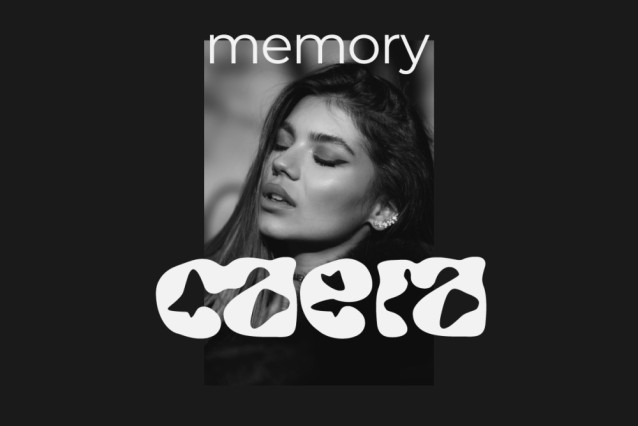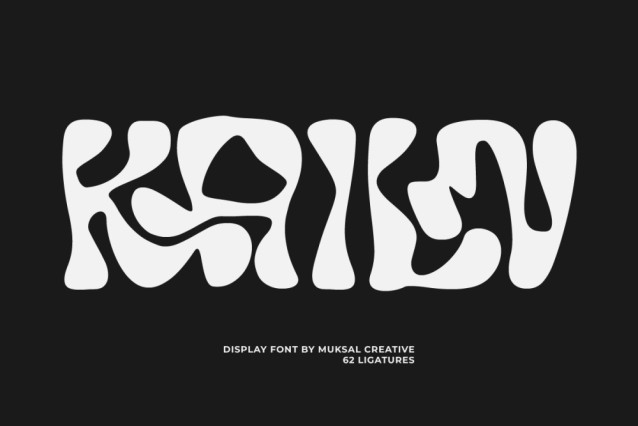
Kailn Font
Kailn Font special glyphs, ornament and multilingual support. It’s a very versatile font that works great in large and small sizes. Perfect for editorial projects, Logo design, Clothing Branding, product packaging, magazine headers, or simply as a stylish text overlay to any background image.